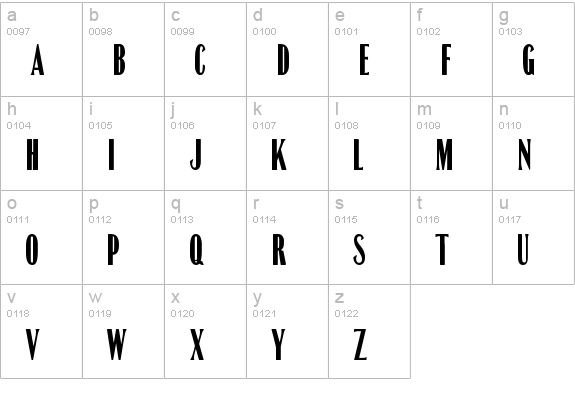
Headline Modified HPLHS Font Details
Introducing the Headline Modified HPLHS font, a captivating typeface that effortlessly combines classic elegance with a modern twist. Crafted with meticulous attention to detail, this font is perfect for adding a touch of sophistication to your design projects. The Headline Modified HPLHS font exudes a timeless charm through its bold and striking letterforms. Its clean lines and distinctive curves create a sense of fluidity and grace, making it a versatile choice for a wide range of applications. Whether you're designing a logo, poster, invitation, or any other creative endeavor, the Headline Modified HPLHS font will undoubtedly elevate your work to new heights. Its versatility allows it to effortlessly adapt to both bold and subtle design concepts, adding depth and character to your composition. Best of all, the Headline Modified HPLHS font is freely available to download at FontsMarket.com. This means that you can enjoy the remarkable beauty and functionality of this font without any cost. With just a few clicks, you can enhance your design projects and unleash your creativity with this exceptional typeface. So why wait? Make a statement with the Headline Modified HPLHS font today. Download it for free at FontsMarket.com and experience the power of this captivating font firsthand. Elevate your designs, captivate your audience, and leave a lasting impression with the Headline Modified HPLHS font.